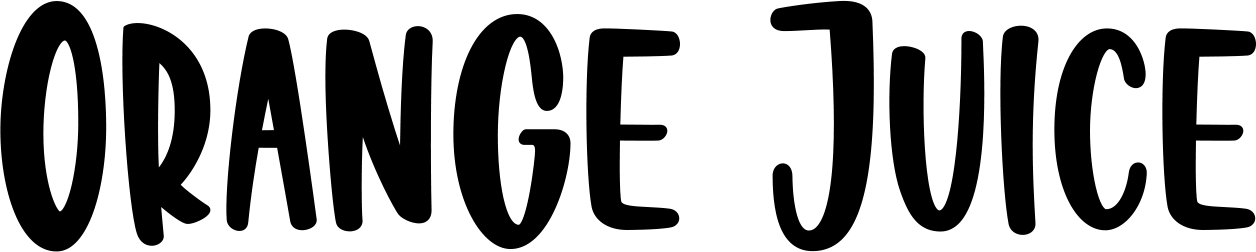
Orange Juice Font
By the use of this Orange Juice cartoon font, share the joy of displaying special designs from comic books, greeting or invitation cards, posters, and animations with your audience and make reading more enjoyable for them.
Despite the lack of lowercase letters, the playful and cute traits of this food font are enough to make it striking in attracting the maximum attention of any reader.